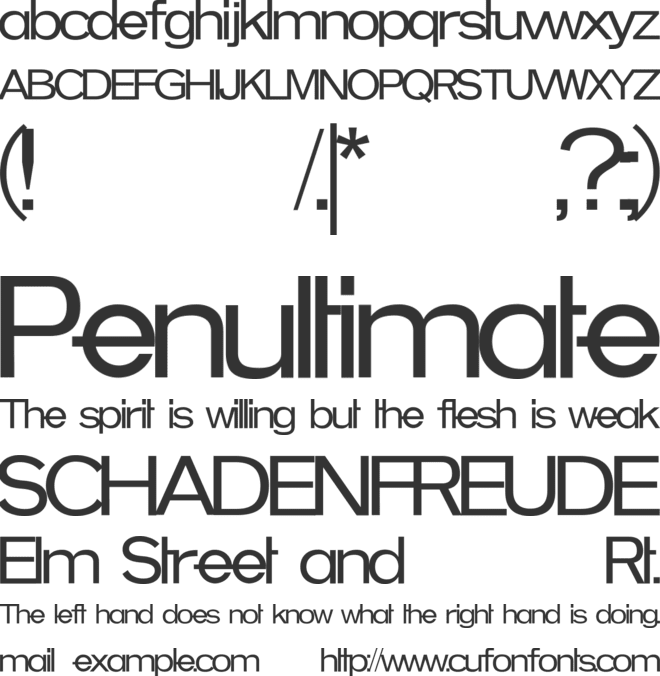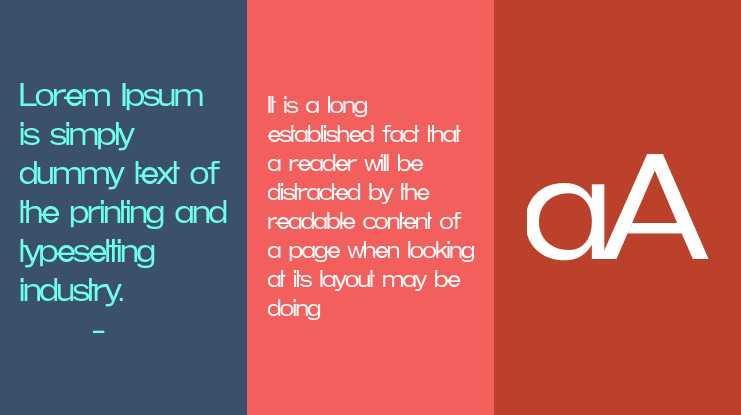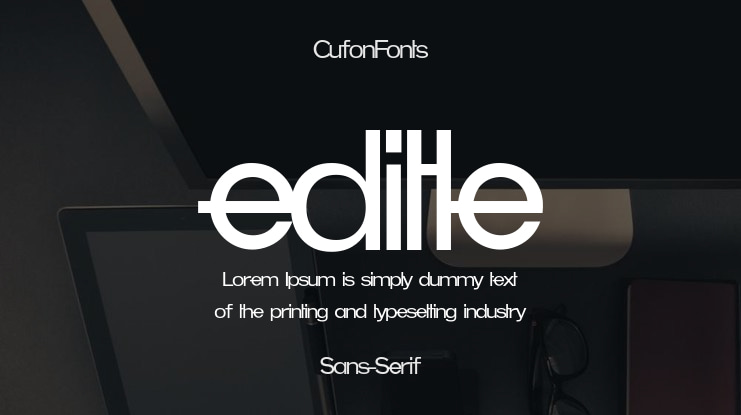
editle Font Family
🎨 Font Name: editle by Minimalist Art Studio
🎨 Font Description: editle is a clean sans serif with geometric precision and modern edge, perfect for branding, tech, and editorial design.
✔ Complete Latin set + multilingual diacritics
✔ Alternates, stylistic sets & ligatures
✔ Numbers, small caps, and extended punctuation
✔ Bonus italics and family styles